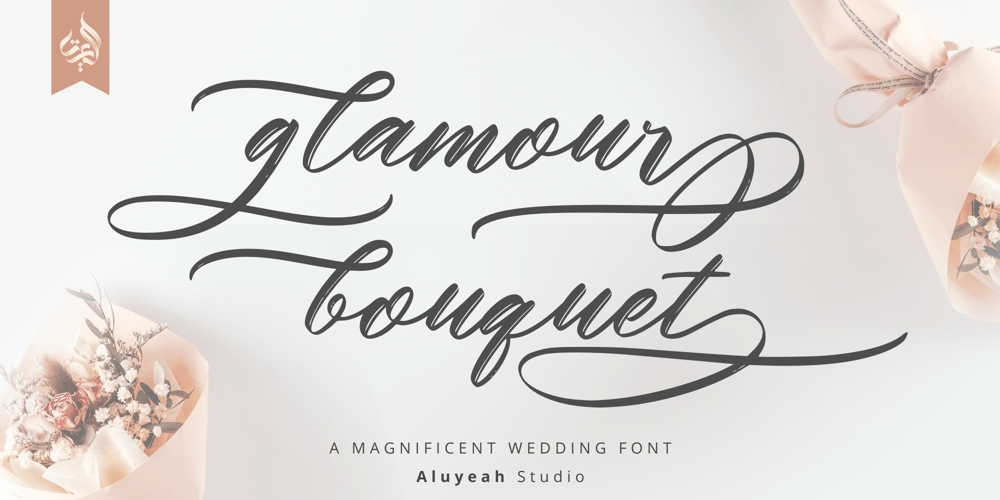
Al Glamour Bouquet Font Family was designed by Linggar Sundoro and published by Aluyeah Studio. Al Glamour Bouquet contains 1 styles and family package options. Hello Aluyeaholics!Glamour Bouquet, a magnificent wadding handwritten font. It’s was inspired by a royal wedding that just took place in our town. Uniting the two empires of the two major cities of our country. Coming with 140+ stunning and super easy to use alternates and ligatures. Super Easy to Use alternates – You can easily call alternates using special combination like a.2 k.3 b.4 t.h c.c etc. To get results like the preview just type g.7l.8amour.3 b.6ouquet.2